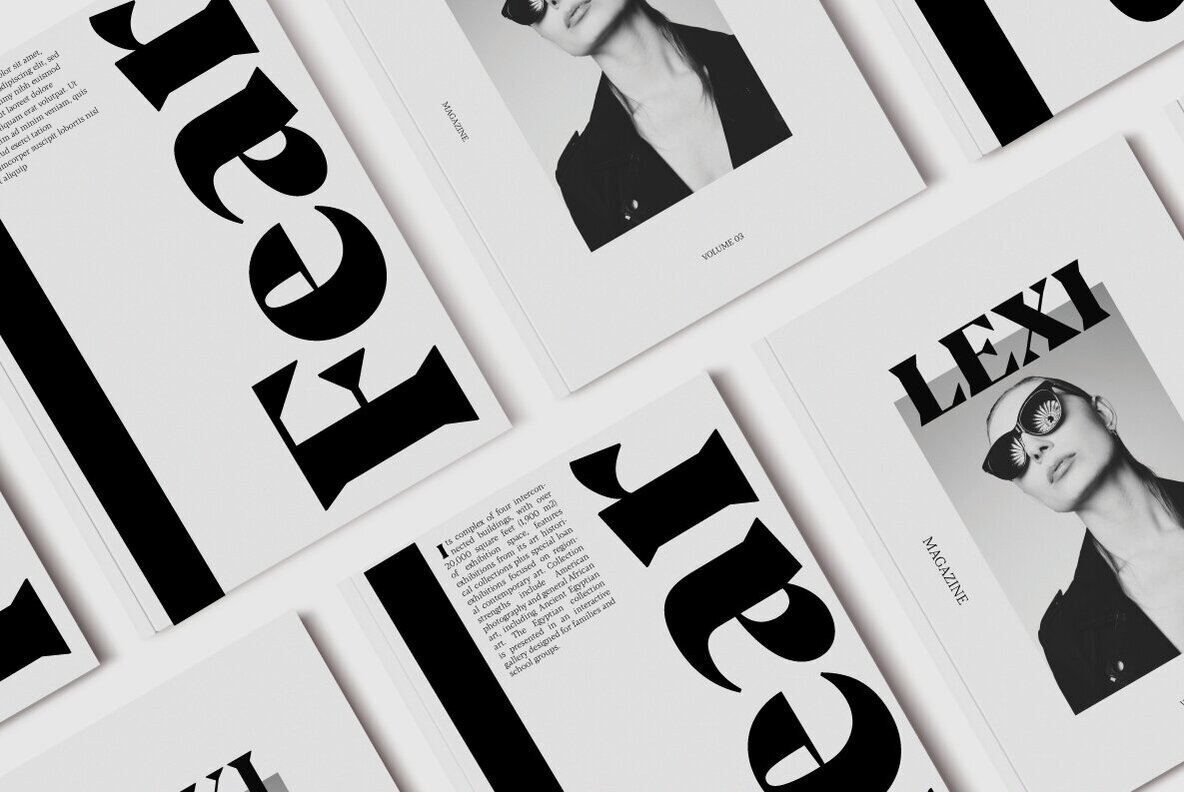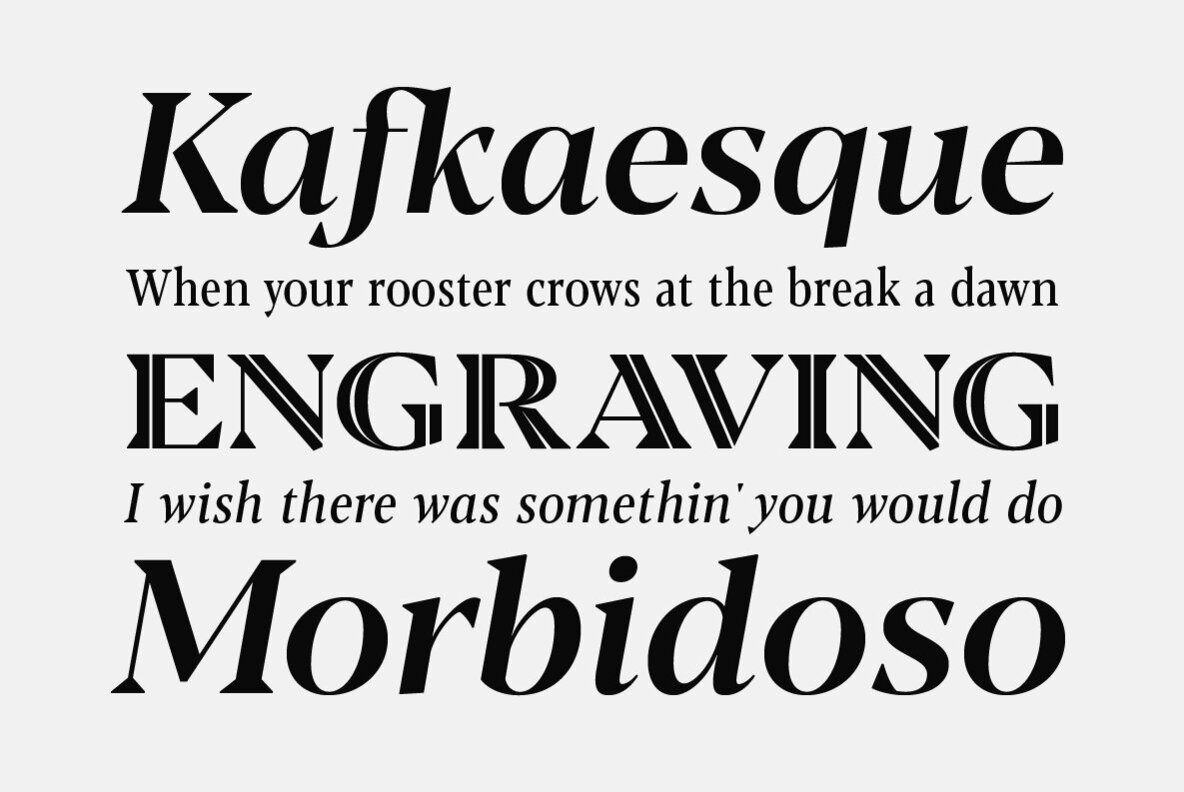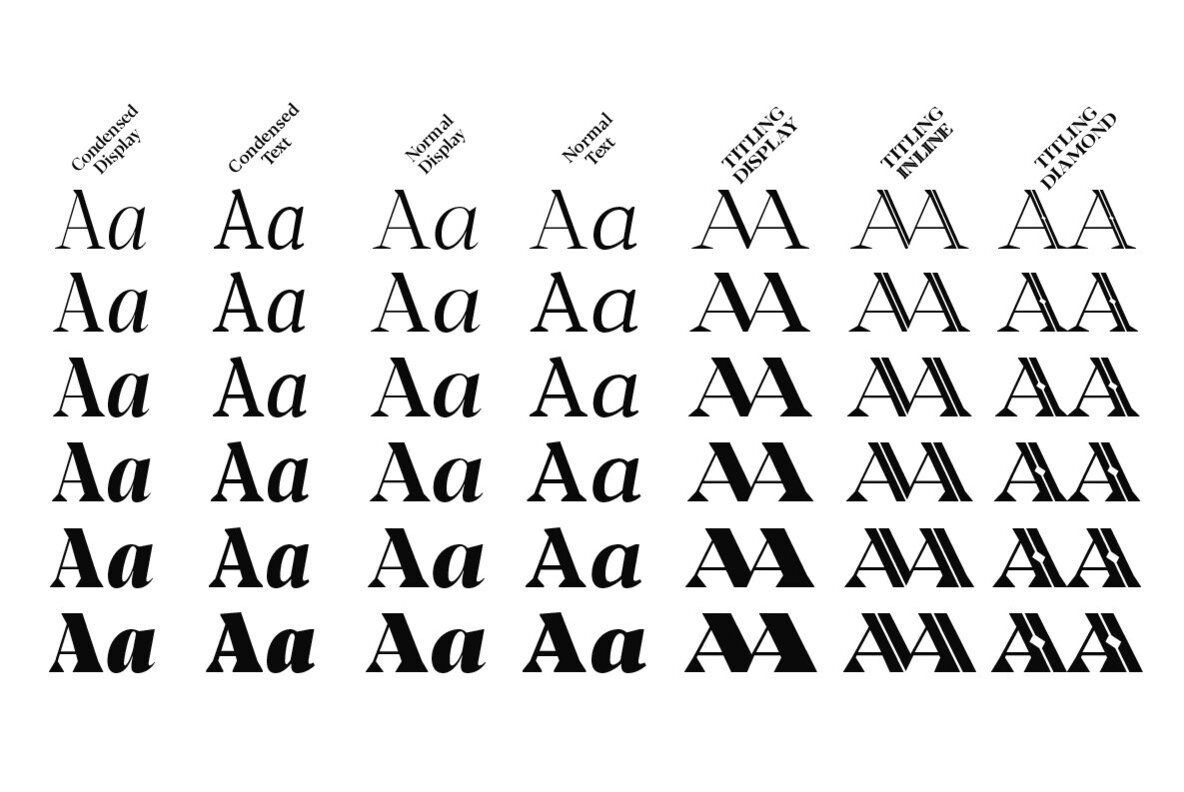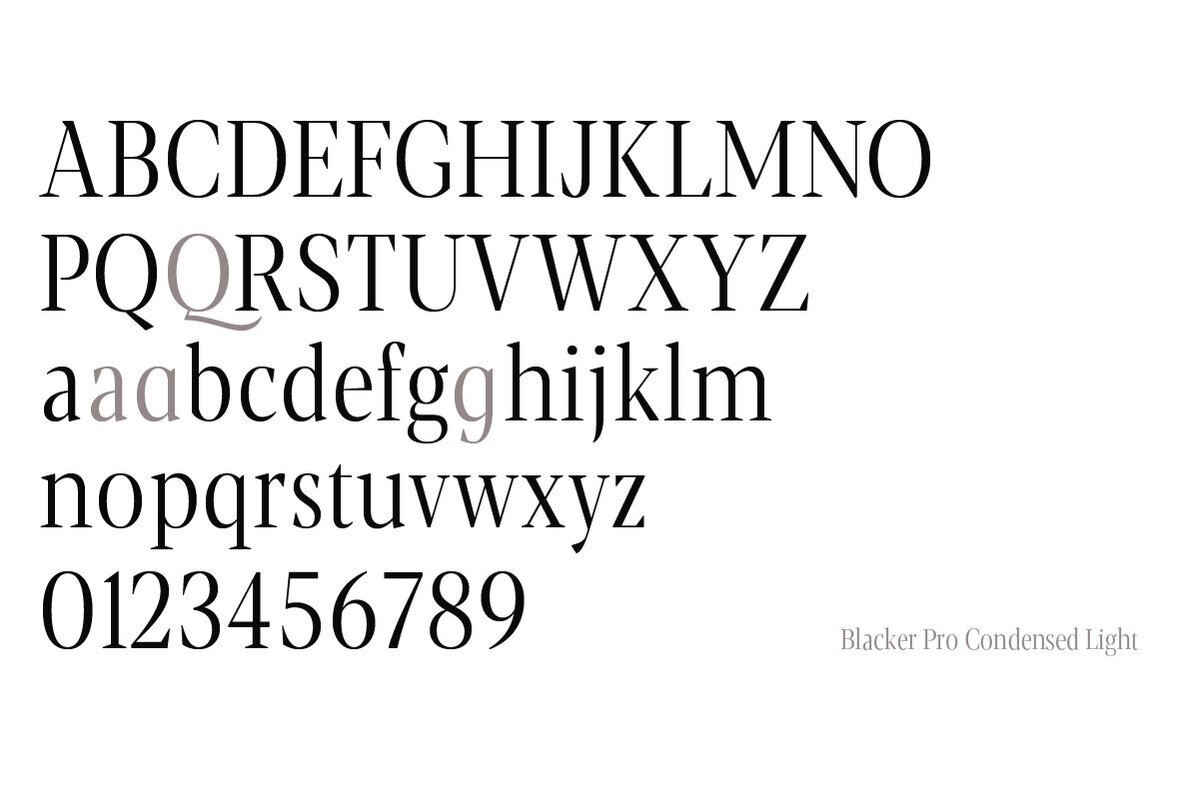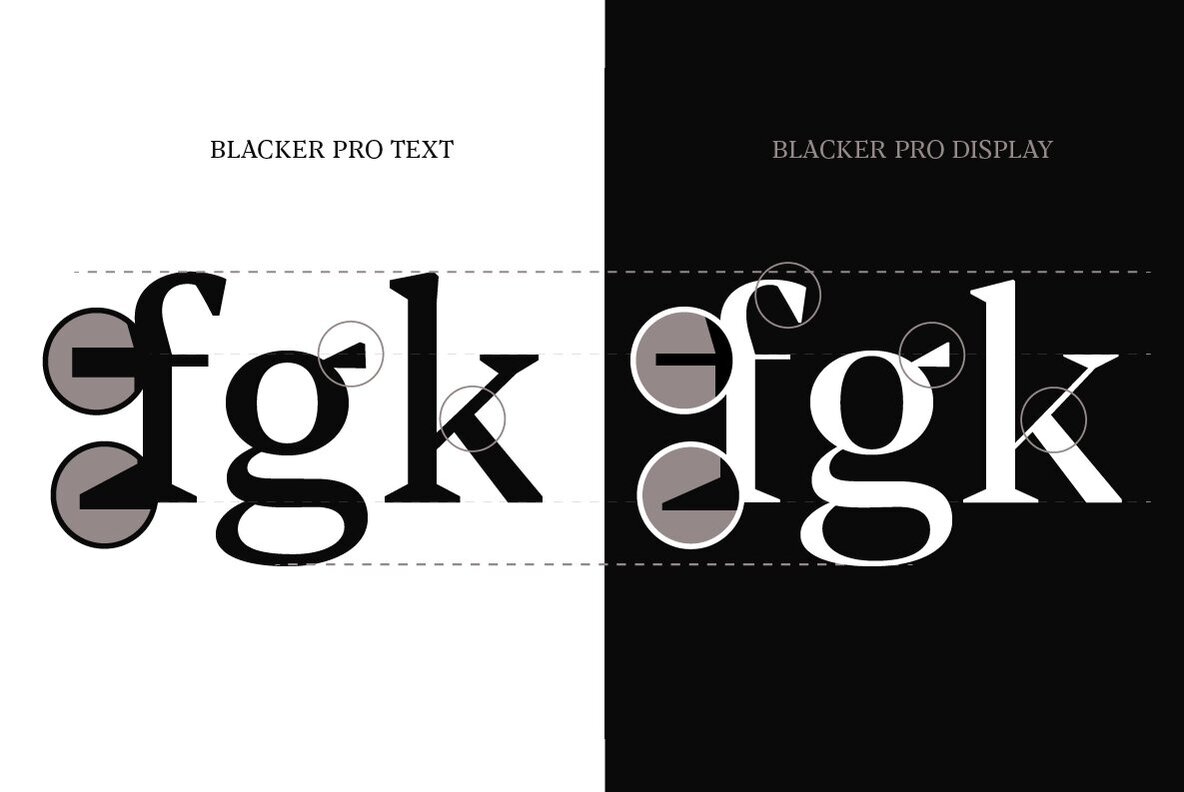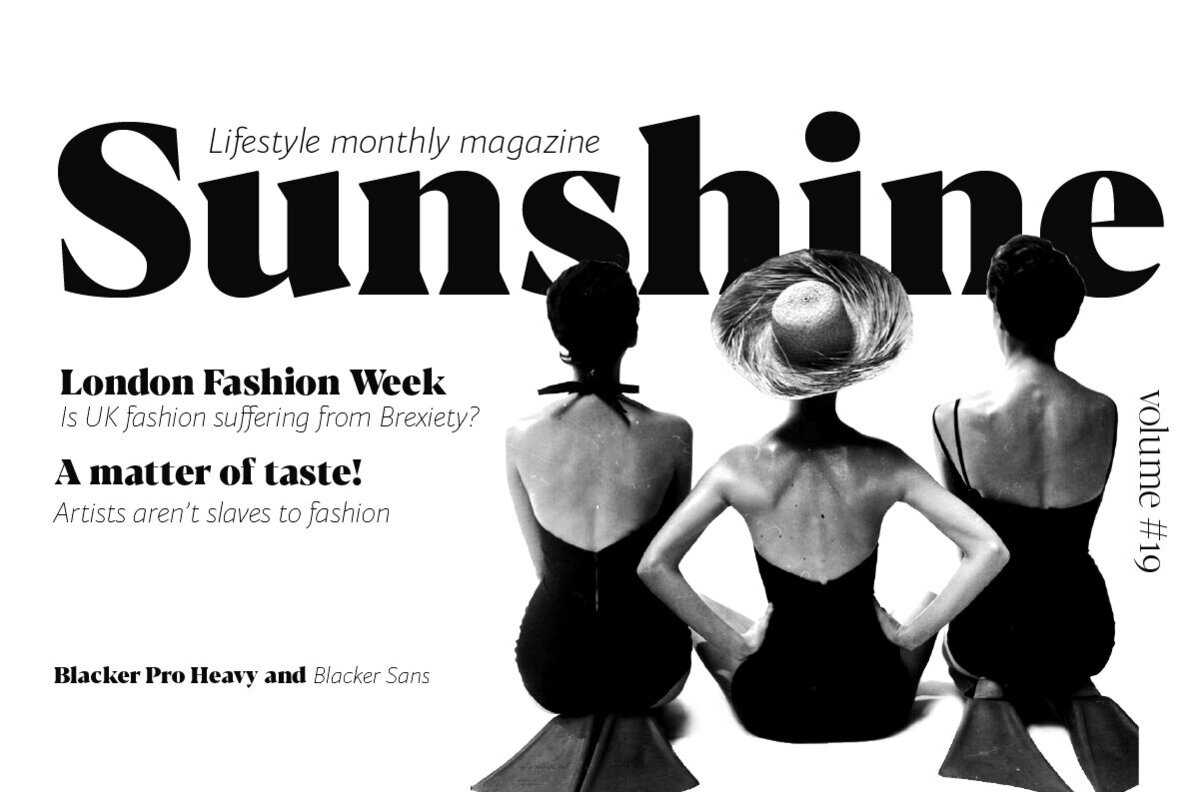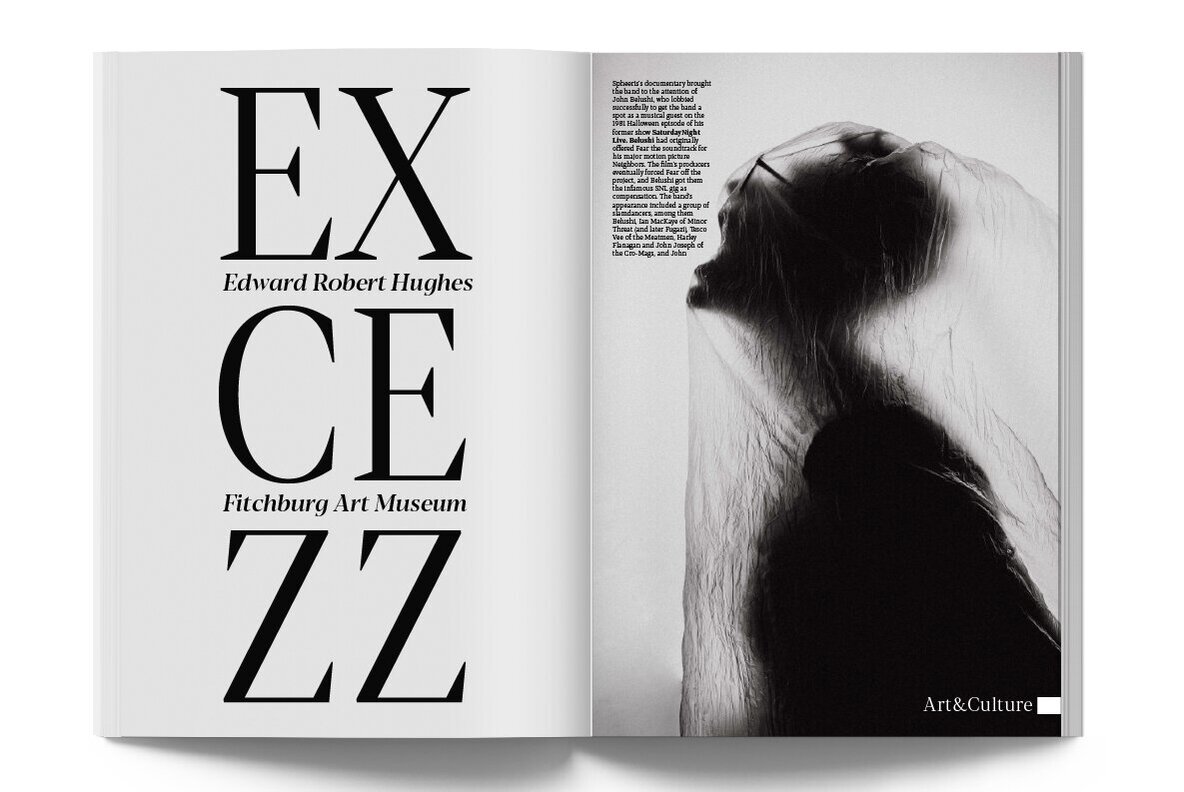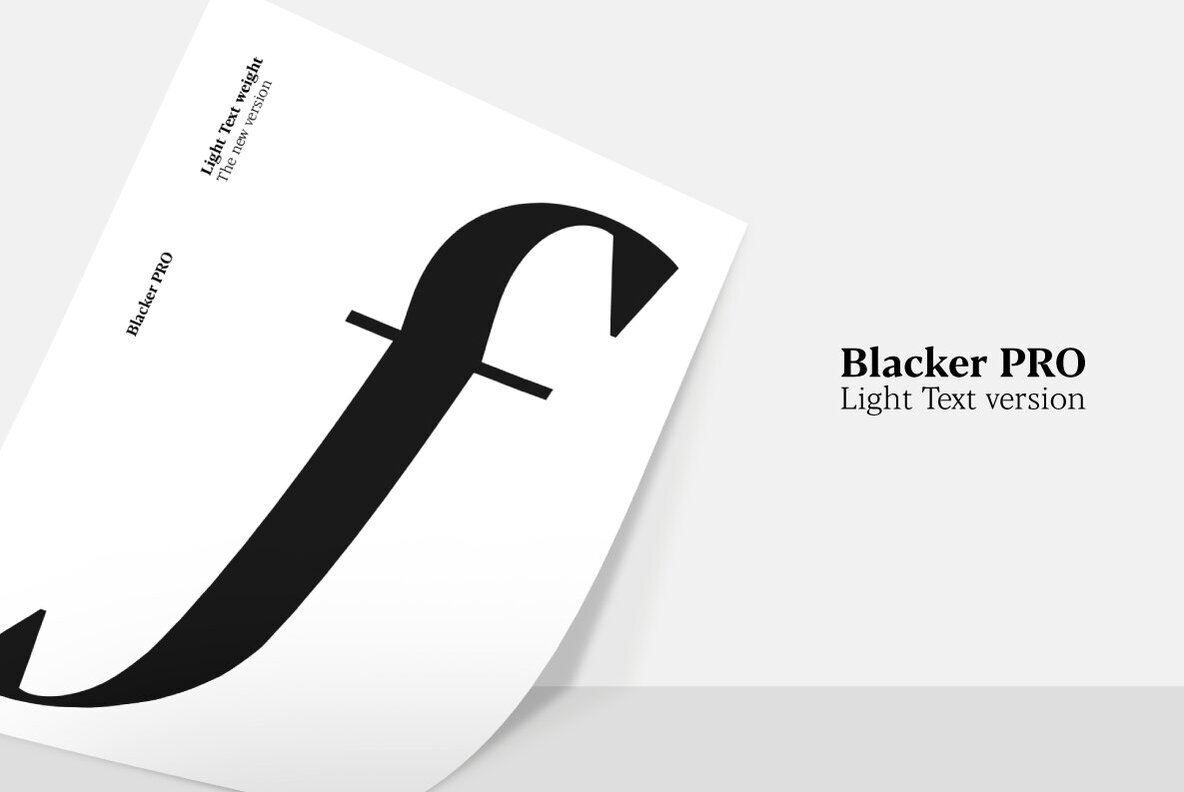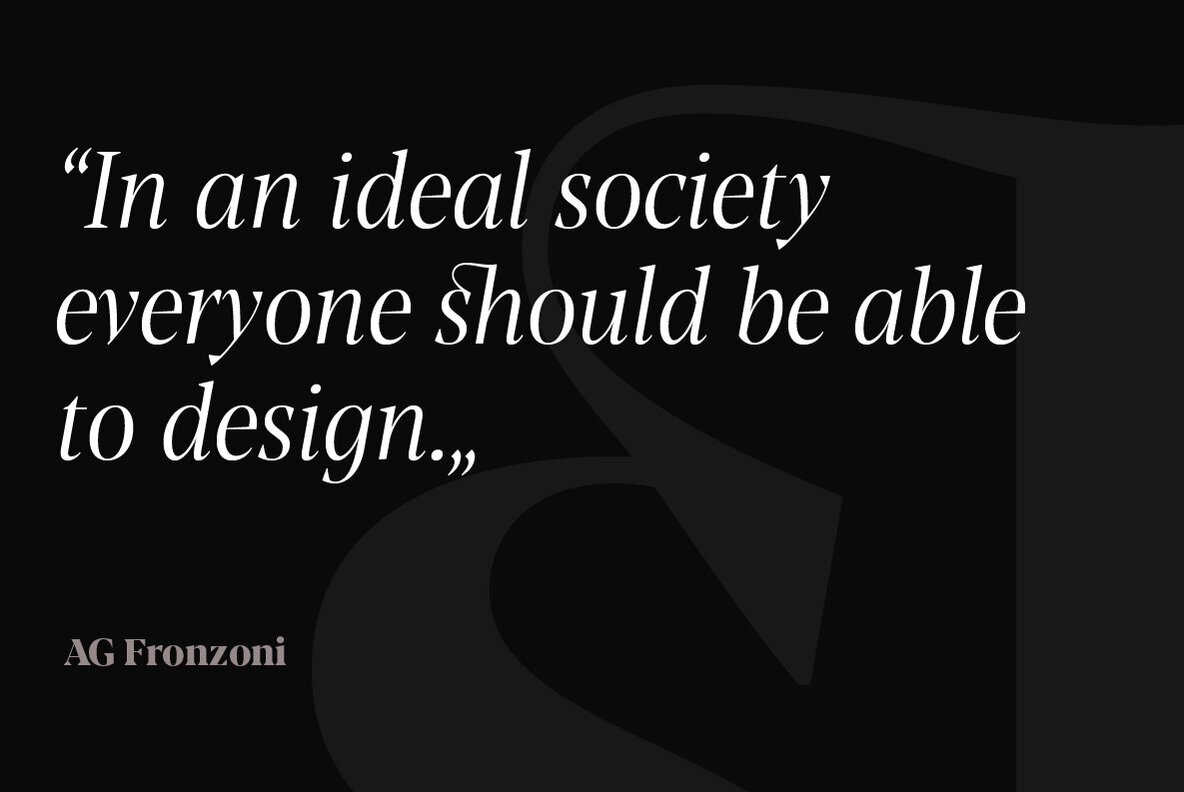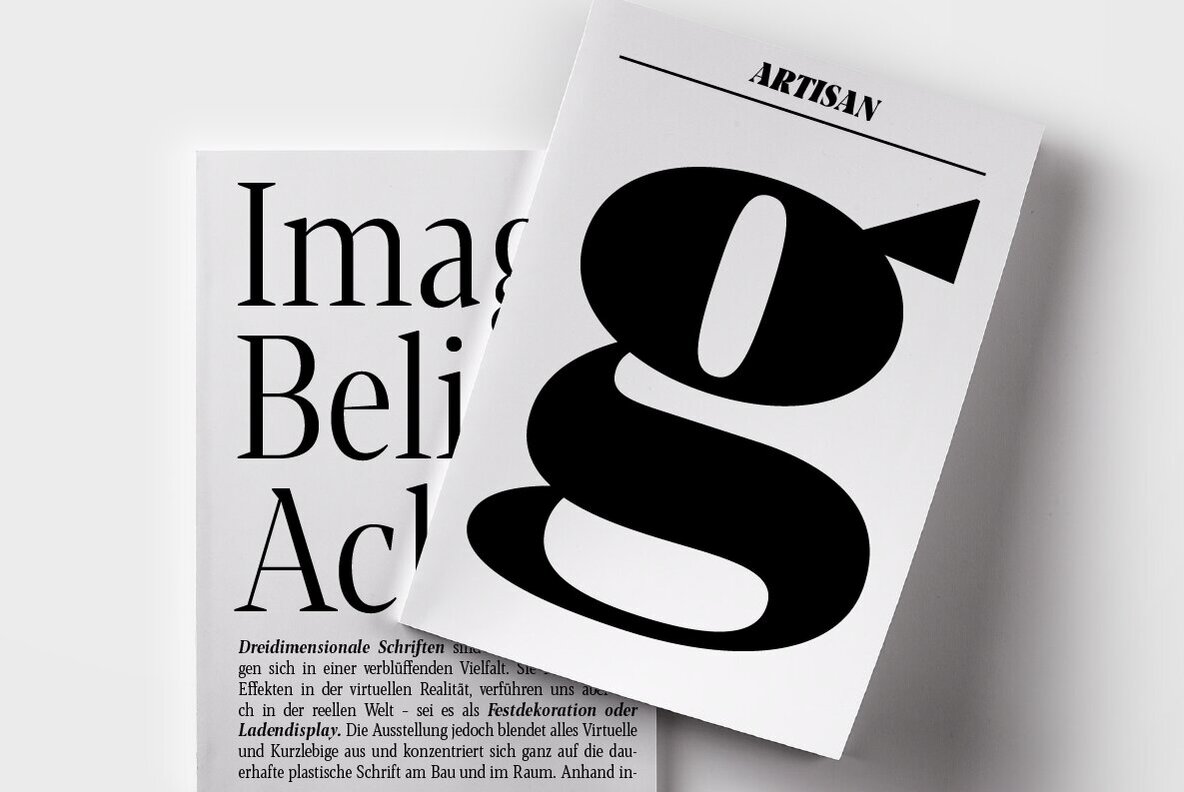
Blacker Pro Font
With its bold personality, Blacker aims to be a modern classic used for bold statements and self-conscious brands, making your text look great both on paper and on the screens.